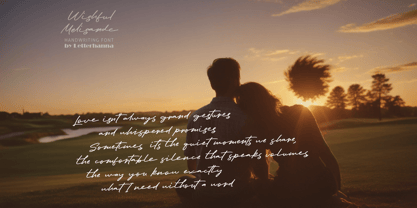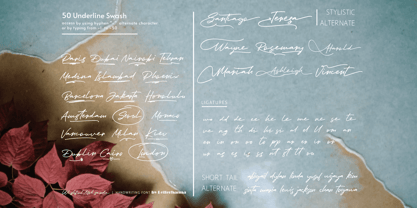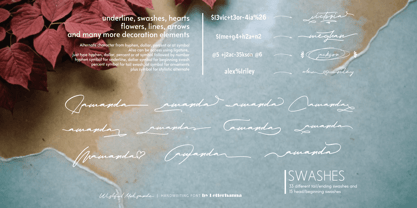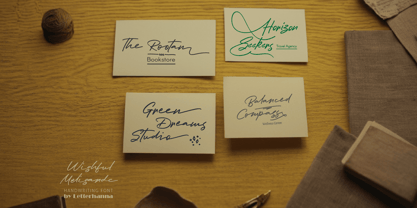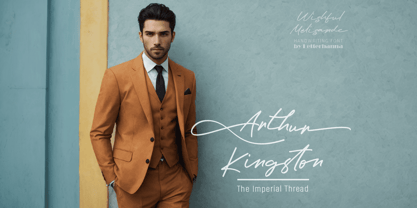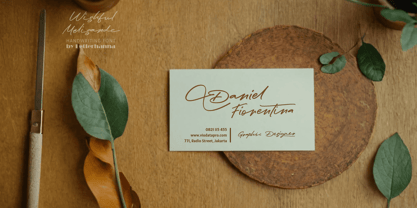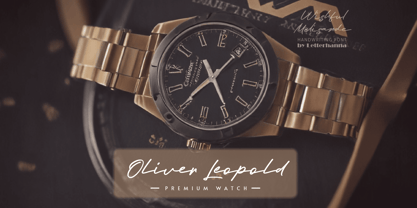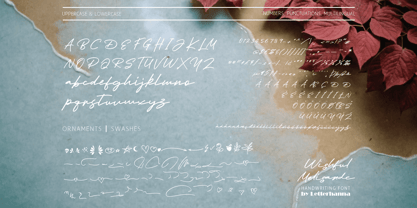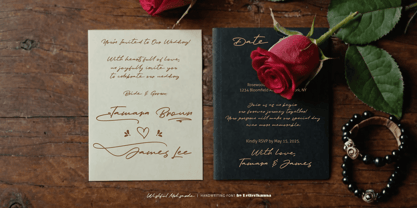
Wishful Melisande
by Letterhanna Studio
The Wishful Melisande Font Family was designed by Rinaldo Hasibuan and published by Letterhanna Studio. Wishful Melisande contains 1 styles. More about this family
Introducing Wishful Melisande, a graceful and enchanting handwriting script font that captures the beauty of fluid strokes and delicate curves. Designed for those who appreciate elegance, this font blends natural hand-drawn charm with a touch of sophistication, making it perfect for branding, invitations, and artistic projects.